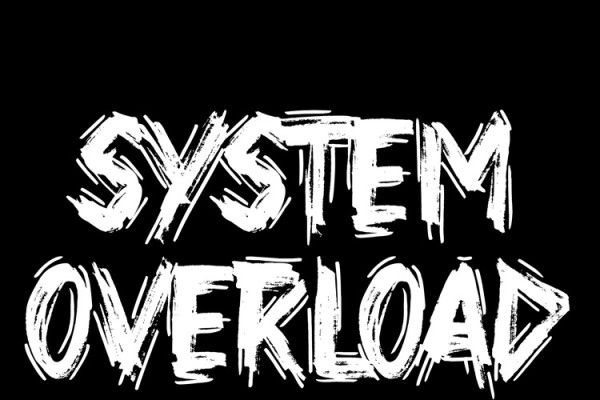
System Overload Font
System Overload Font is this cool hand-written brush font. “SystemOverload”. Perfect for advertising purposes, including invitation cards, book covers, shirts, posters, logos and much more!